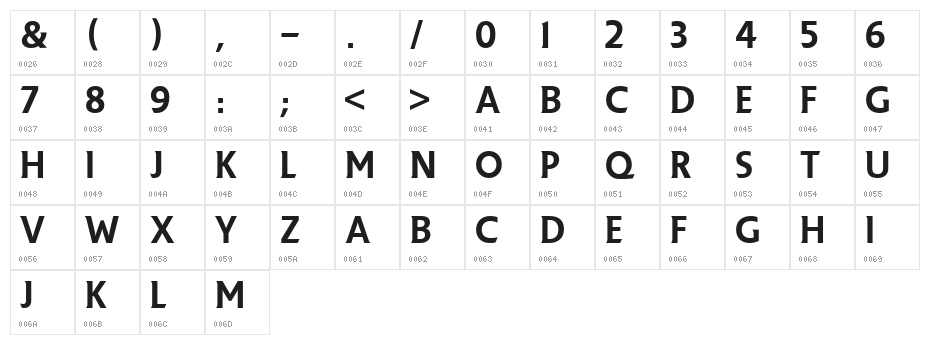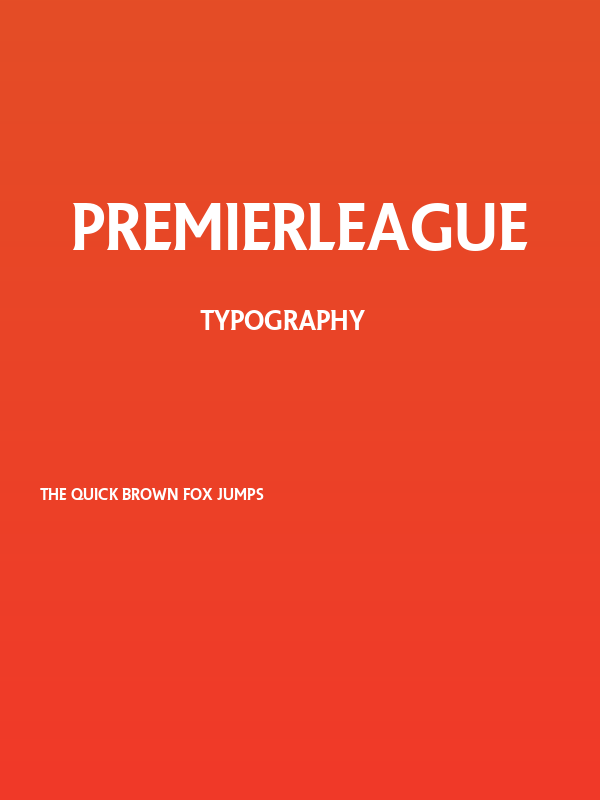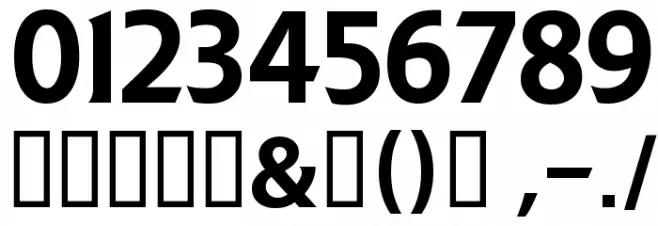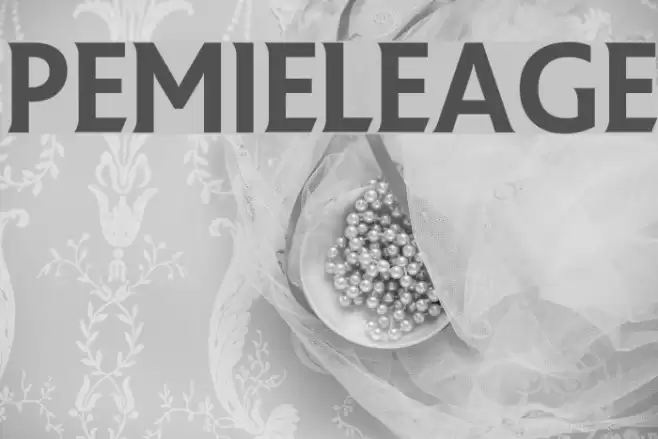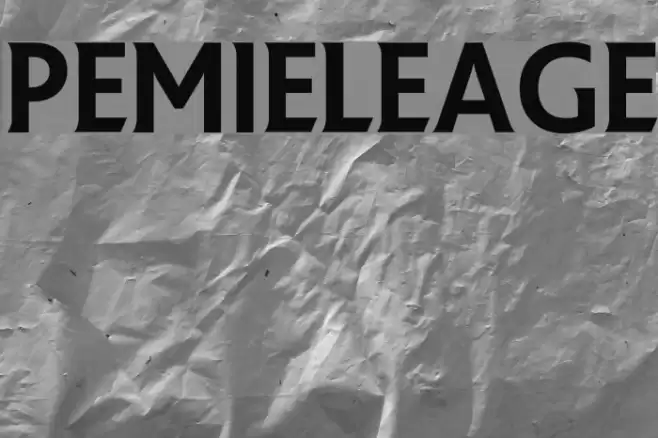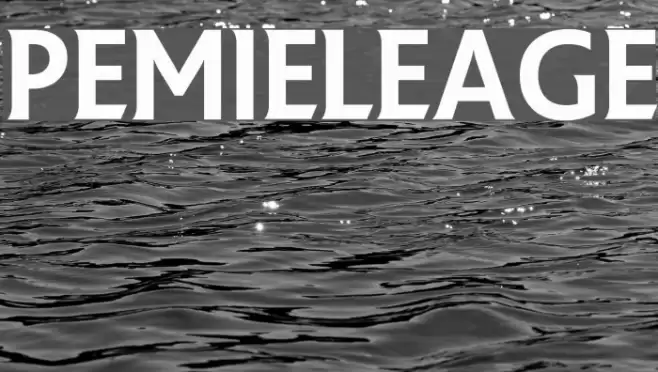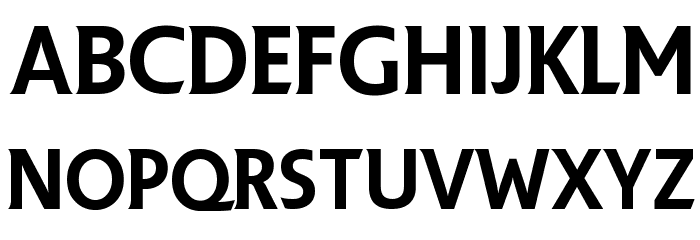
PremierLeague Font
PremierLeague Description
This font features a bold and modern sans-serif style with clean lines and a strong presence. The uppercase letters are well-defined with a slight geometric influence, providing a sense of stability and professionalism. The lowercase letters maintain the same boldness, ensuring readability and consistency across different text sizes. The numerals are clear and distinct, making them suitable for various applications. The special characters are designed to complement the overall style, maintaining the font's cohesive look. This font is versatile, suitable for both digital and print media, and can be used effectively in branding, advertising, and editorial design.
| Use Case | Headlines, Logos, Branding |
| Proposed Projects | Ideal for branding, advertising, editorial design, and digital media. |